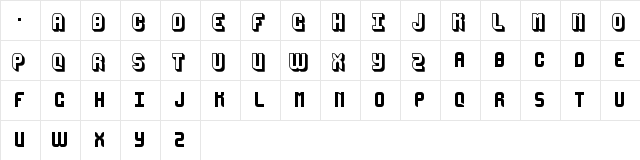
Mega Sans Regular Font Preview
Mega Sans Regular
Design Context for Mega Sans Typeface
Mega Sans is a composed and adaptable typeface that performs quietly and consistently across a wide range of design contexts.